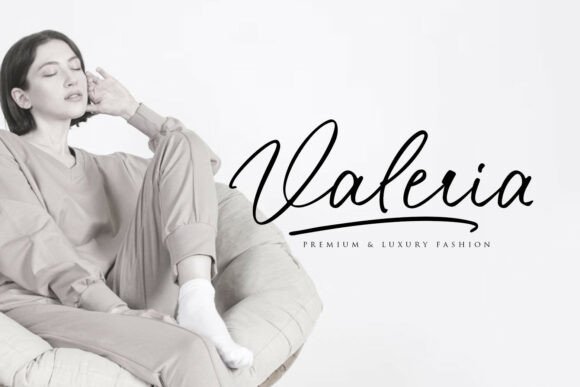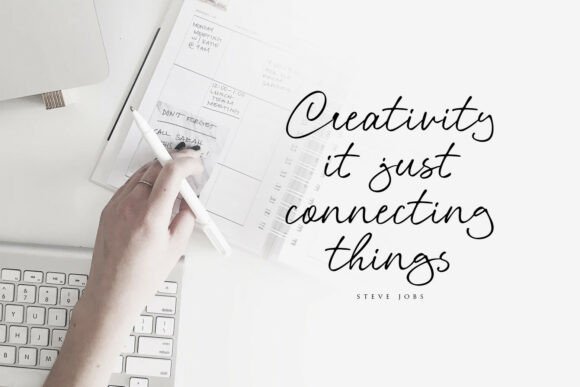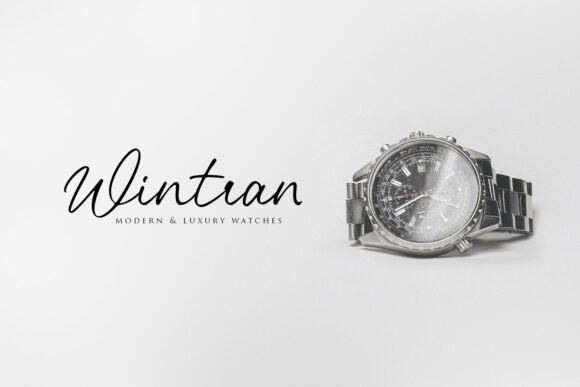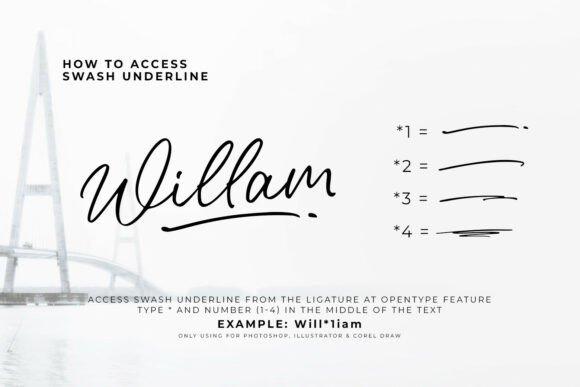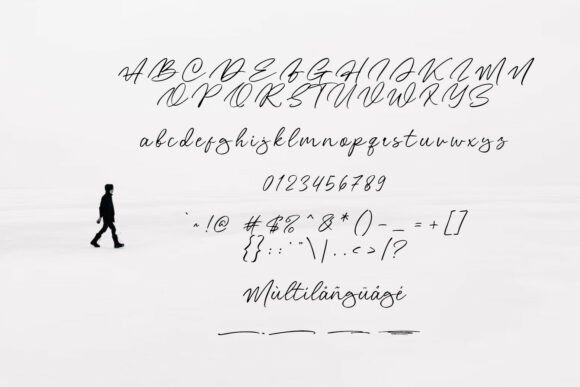
Introduction to Mindway Font
Mindway is a modern handwritten script font with a clean, flowing style that mimics natural penmanship.
Its elegant monoline strokes and slightly slanted letterforms give it a casual yet refined look, perfect for adding a personal touch to any design Alterday works beautifully across a wide range of creative projects, including branding, blog headers, social media graphics, quotes, invitations, product packaging, and minimalist logos.
Key Features of Mindway Font